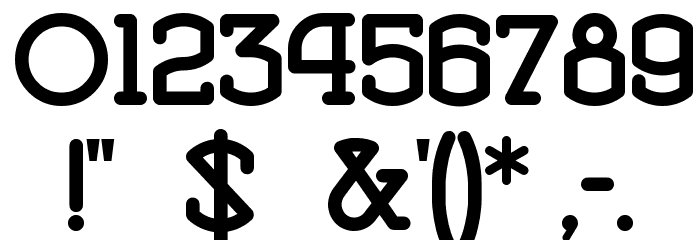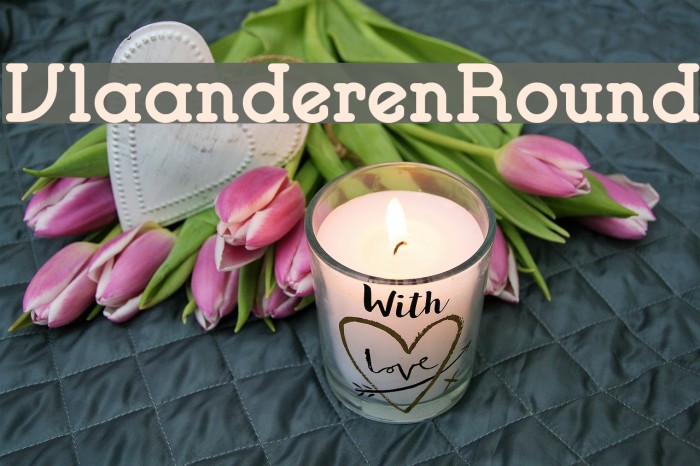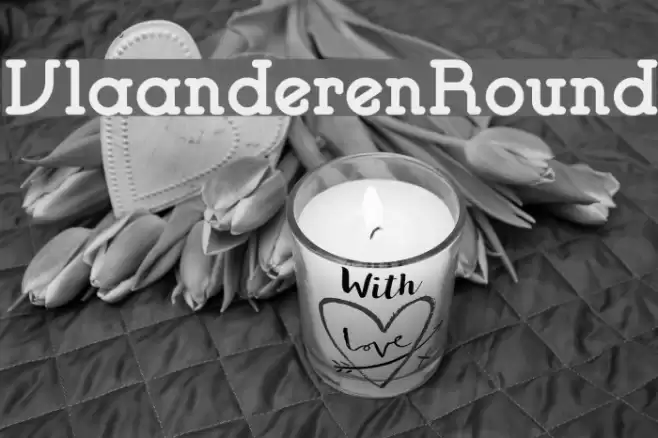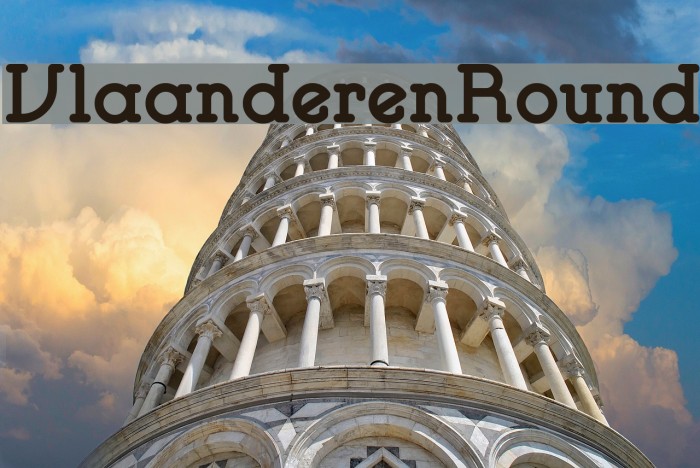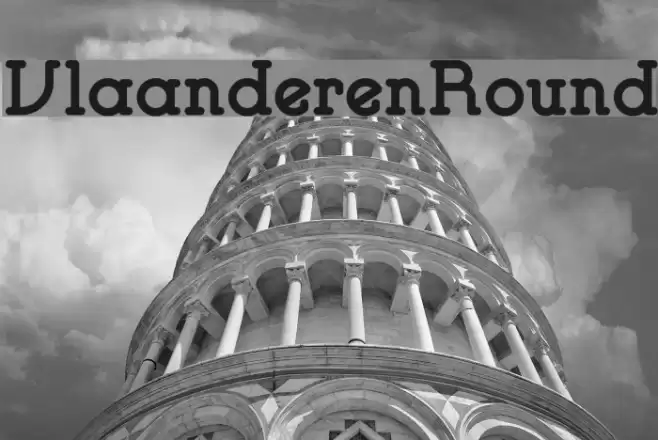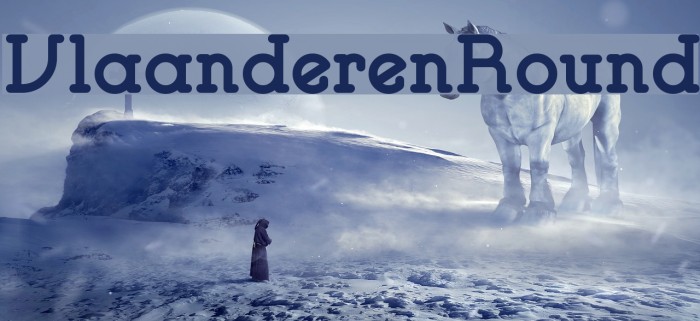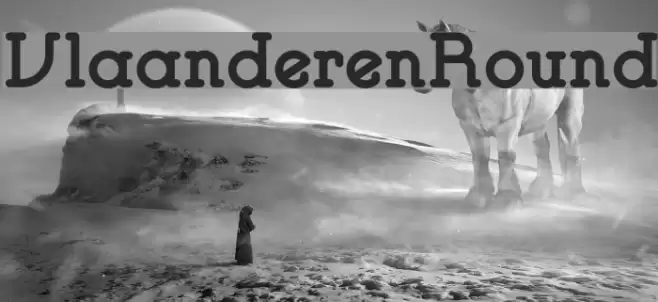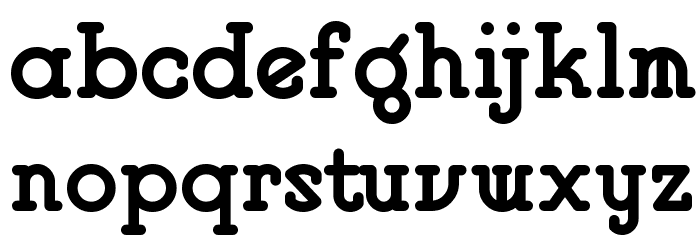
VlaanderenRound Font
VlaanderenRound Description
This font features a playful and rounded style with a unique blend of modern and vintage elements. The characters are bold and have a distinct rounded terminal that adds a friendly and approachable feel. The uppercase letters are slightly more geometric, while the lowercase letters maintain a consistent roundness, giving the font a cohesive look. The numbers are well-balanced and match the overall style, making them easy to read. The special characters are designed to complement the alphabet, maintaining the same rounded and bold characteristics.
| Overall Style | Playful, Modern, Vintage |
| Proposed Projects | Ideal for children's books, playful branding, posters, and creative projects that require a friendly and inviting typeface. |